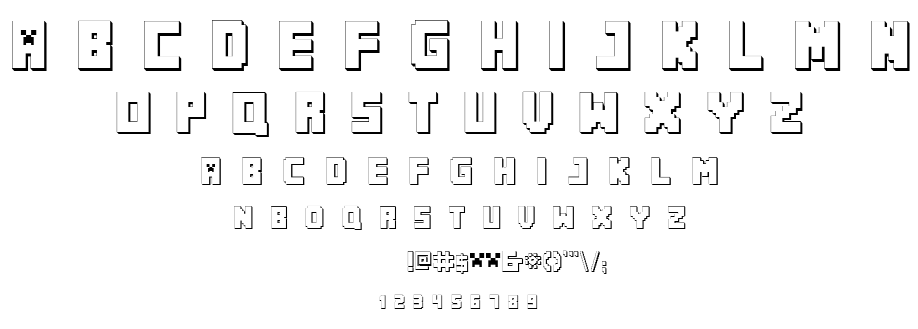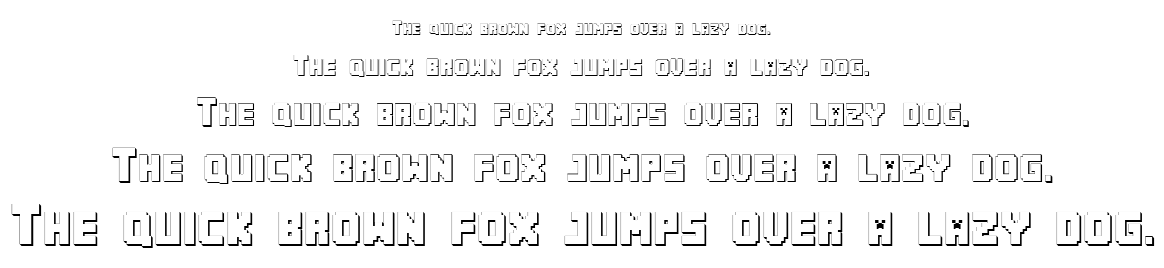
Created for the shear enjoyment of it after of watching my 7 year old son create amazing architectural structures on his iPad mini . He loves playing this retro game and using this font he has created his very own Minecraft manual using this 3D version based on the popular pocket edition game of the same name.